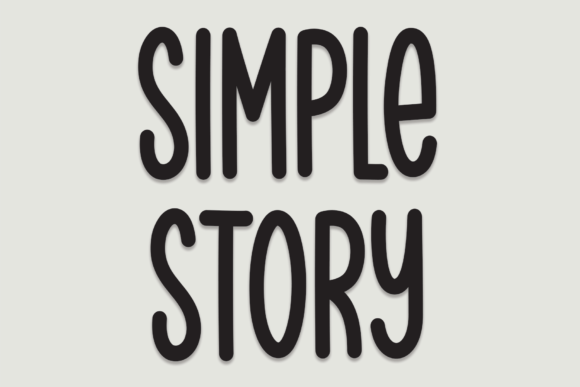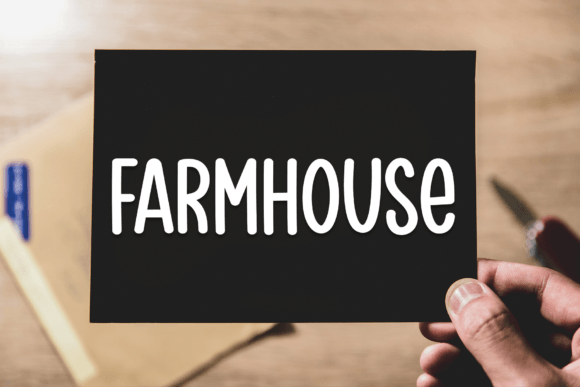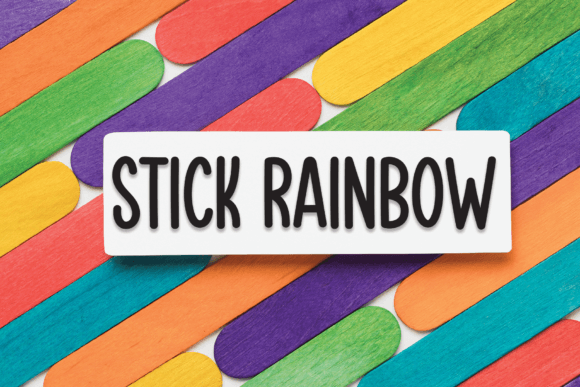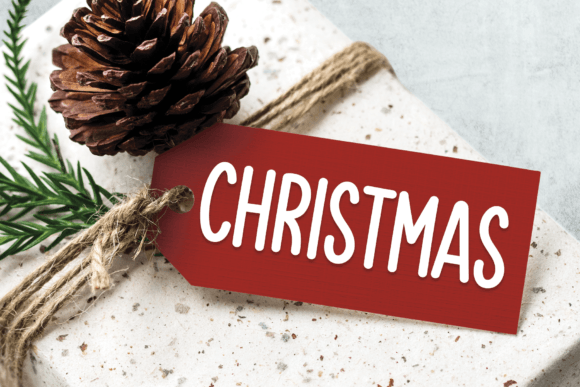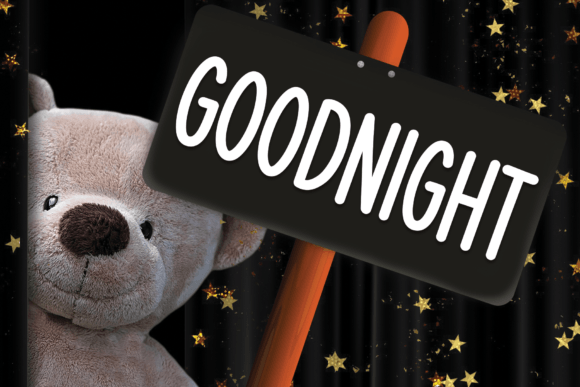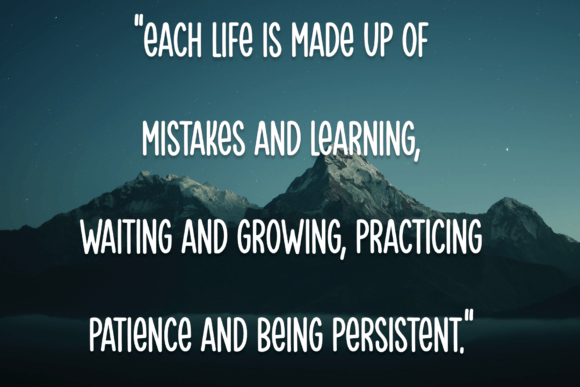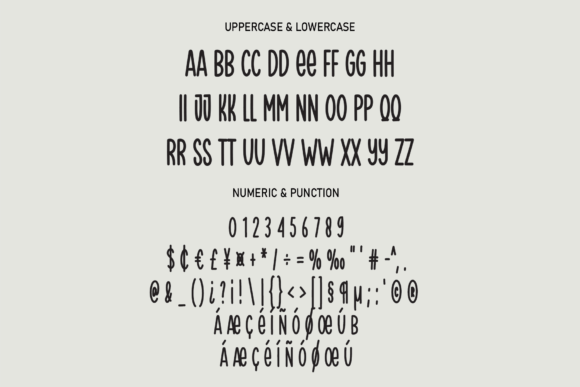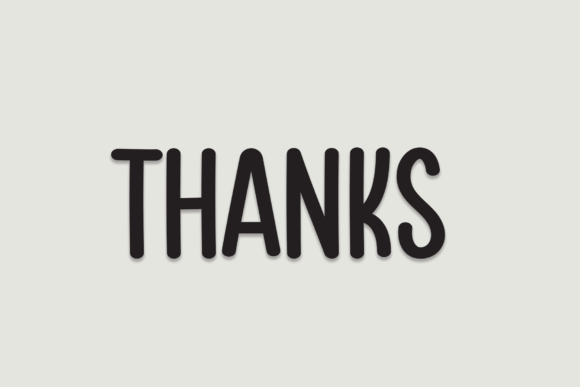
Simple Story Font
Simple Story Handwritten Font – Casual and Neat Typeface
The Simple Story Handwritten Font is a clean and versatile typeface designed to bring a professional yet casual look to your projects. With its smooth handwritten strokes and balanced structure, it works perfectly across digital and print formats. Whether you are designing invitations, logos, or posters, this font adds an elegant yet approachable feel.
A Handwritten Style with Clarity
The Simple Story Handwritten Font blends neat curves with a relaxed handwritten style. Its sleek and well-proportioned letters provide clarity, making it easy to use in professional contexts while maintaining a personal touch. This combination ensures it fits into both casual and formal projects.
Perfect for Invitations and Branding
One of the best uses of the Simple Story Handwritten Font is in invitations, greeting cards, and branding. Its natural strokes add warmth to wedding stationery and personal notes. At the same time, it gives logos, labels, and product packaging a modern handcrafted edge.
From posters and social media graphics to business cards and website headers, the Simple Story Handwritten Font adapts to many different uses. Its mix of casual friendliness and professional neatness makes it suitable for both creative personal work and corporate design needs.
Why Designers Love Simple Story Font
Designers appreciate fonts that offer flexibility without losing character. The Simple Story Handwritten Font provides just that—stylish strokes with clear readability. Its versatility ensures that it remains a reliable choice for a wide range of projects.
In summary, the Simple Story HandwrittenFont is a casual, neat, and versatile typeface. With its clean handwritten style, quick installation, and wide usability, it is perfect for invitations, branding, posters, and greeting cards. Don’t miss the chance to download Simple Story HandwrittenFont and bring clarity and style to your designs.